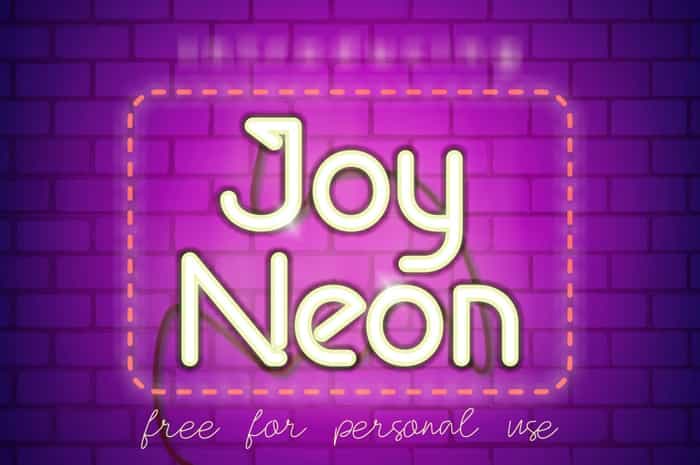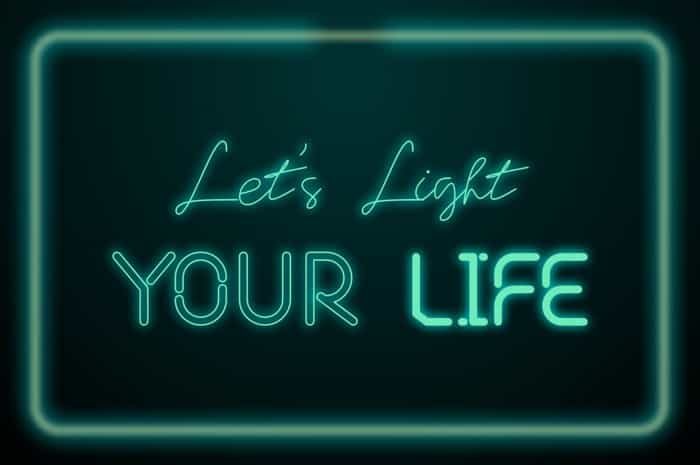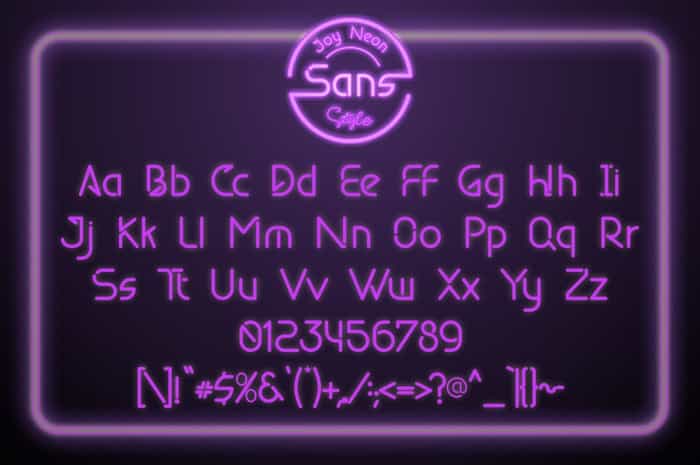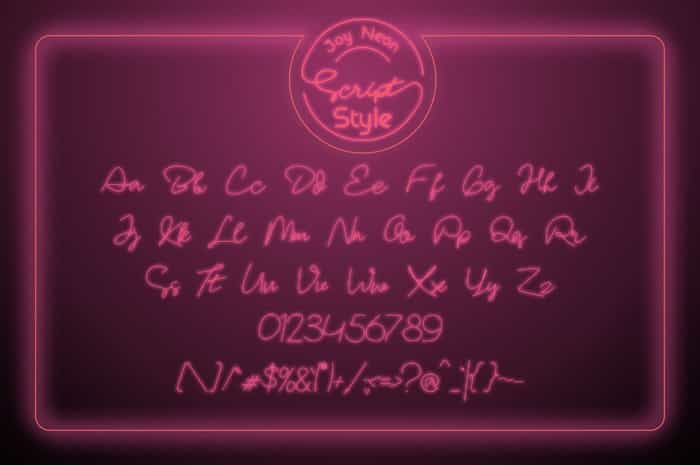
Joy Neon is a trio font consisting of script and sans. Joy Neon is a typeface designed to be a tribute to real neon light signs. It is a minimalist typeface with softly rounded corners. It is as true to the genuine neon tubes, only makes use of lines that have open end and start points.